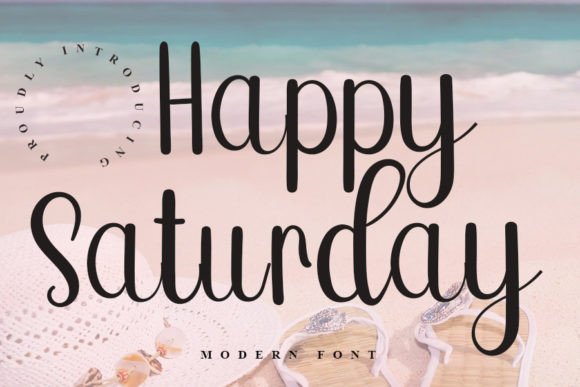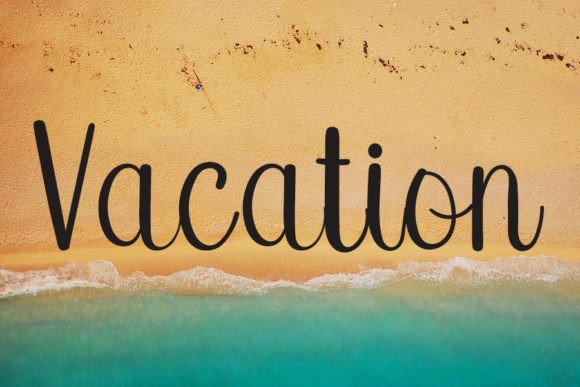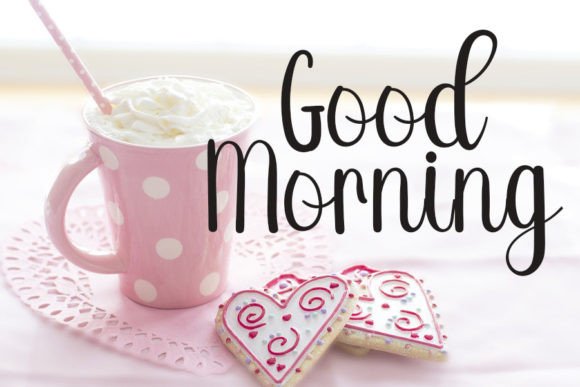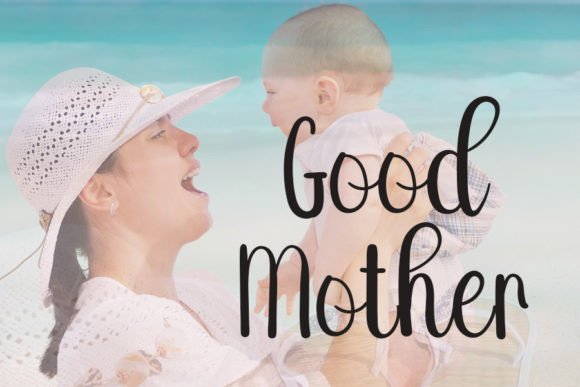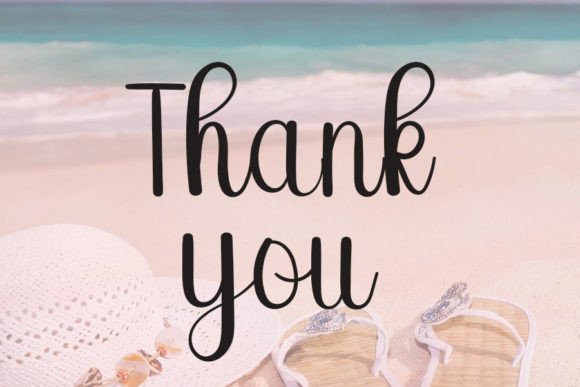
Happy Saturday Font
About Happy Saturday Font
A Charming and Elegant Handwritten Font
The Happy Saturday Font is a charming handwritten script that combines elegance and personality. Its flowing curves and soft strokes make it a perfect choice for a wide range of design projects. Whether you’re creating wedding invitations, thank you cards, quotes, greeting cards, or logos, the Happy Saturday Font adds a unique, handwritten touch that brings warmth and style to any design.
Perfect for Wedding Invitations and Greeting Cards
If you’re designing for special occasions, the Happy Saturday Font is an ideal choice. Its delicate, flowing script adds a touch of sophistication and intimacy to wedding invitations, thank you notes, and greeting cards. Whether you’re crafting a formal wedding invitation or a casual thank you card, this font makes your message feel personal and heartfelt, leaving a lasting impression on your audience.
Ideal for Logos and Business Cards
The Happy Saturday Font also shines in branding and logo design. Its elegant yet approachable style makes it perfect for creating logos and business cards that reflect a professional yet friendly brand identity. Whether you’re a small business, startup, or an established company, this font enhances your brand with its handwritten charm, ensuring your logo stands out in a crowded market.
Stunning for Quotes and Personalized Designs
The Happy Saturday Font is ideal for adding personality to quotes and personalized designs. Whether you’re designing social media posts, motivational quotes, or product packaging, this font’s beautiful script adds a personal, handcrafted feel. Its stylish design captures attention and adds a unique touch to any project, making it perfect for designers who want their content to stand out.
Versatile for Multiple Creative Projects
One of the standout features of the Happy Saturday Font is its versatility. It works seamlessly across a wide range of design applications, from invitations and stationery to branding and advertising materials. Whether you’re working on a formal project or a more casual design, the font’s unique handwritten style makes it adaptable for all types of creative needs.
Easy to Use and Readable
The Happy Saturday Font offers the perfect balance between elegance and readability. Its clear script style ensures that your designs are both beautiful and legible, even when used for longer text passages. Whether you’re creating wedding programs, thank you cards, or branding materials, this font ensures that your content remains accessible and visually appealing.
Perfect for Personal and Professional Use
Whether you’re working on personal projects like thank you cards or wedding invitations, or you’re designing professional materials like business cards or logos, the Happy Saturday Font is versatile enough for both. Its charming handwritten style adds a personal touch while maintaining the elegance needed for professional designs.
Add Elegance to Every Design with Happy Saturday Font
If you’re looking to add a handwritten touch to your designs, the Happy Saturday Font is the perfect choice. Whether you’re working on wedding invitations, greeting cards, logos, or quotes, this elegant and charming script font ensures your designs stand out with a personal and timeless feel. Enhance your next project with the beautiful style of the Happy Saturday Font.